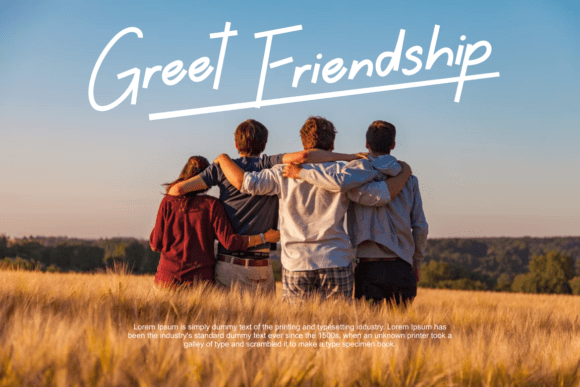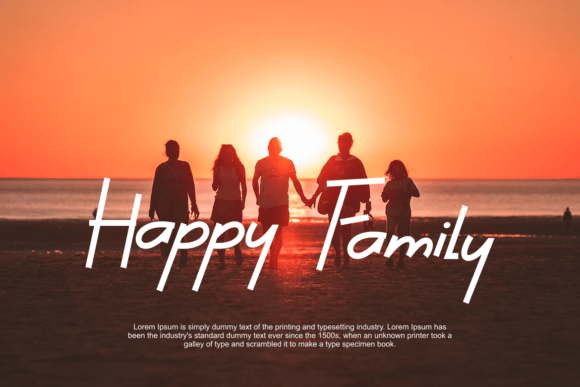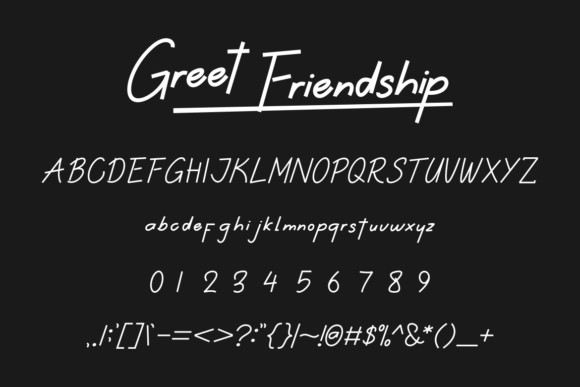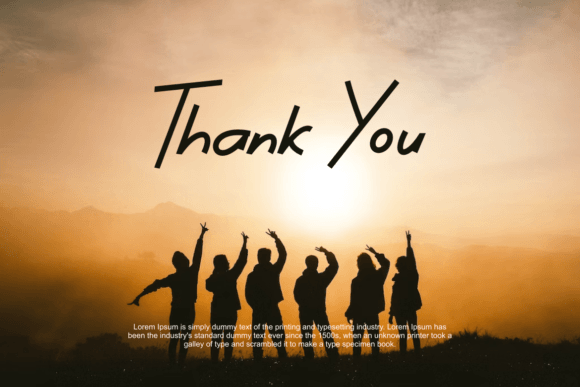
Greet Friendship Font: Elevate Your Designs with Elegance and Charm
Are you a designer or crafter looking for a font that exudes elegance and charm? Look no further than the Greet Friendship Font. This beautiful handwritten font is perfect for adding a touch of sophistication to your designs, making it ideal for a wide range of projects, from wedding invitations to business cards.
The Charm of Greet Friendship Font
Greet Friendship Font feels equally charming and elegant, making it a versatile choice for any design project. Its handwritten touch adds a level of warmth and personality to your designs, setting it apart from more traditional fonts. Whether you’re creating wedding invitations, thank you cards, or greeting cards, this font is sure to make your designs stand out.
One of the best things about Greet Friendship Font is its versatility. It looks stunning on a wide range of design projects, including:
- Wedding invitations: Add a touch of elegance to your wedding invitations with this beautiful font.
- Thank you cards: Show your appreciation in style with Greet Friendship Font.
- Quotes: Make your quotes stand out with this charming font.
- Greeting cards: From birthdays to holidays, Greet Friendship Font is perfect for all your greeting card needs.
- Logos: Add a personal touch to your logo with this unique font.
- Business cards: Stand out from the crowd with Greet Friendship Font on your business cards.
Why Choose Greet Friendship Font?
So why choose Greet Friendship Font for your design projects? Here are just a few reasons:
- Elegant and charming: This font exudes elegance and charm, making it perfect for designs that need a touch of sophistication.
- Versatile: Greet Friendship Font looks great on a wide range of design projects, from wedding invitations to business cards.
- Handwritten touch: The handwritten touch of this font adds a level of warmth and personality to your designs.
- Easy to read: Despite its elegant and cursive nature, Greet Friendship Font is easy to read, making it perfect for designs that need to be both beautiful and functional.
Tips for Using Greet Friendship Font
Here are a few tips for getting the most out of Greet Friendship Font:
- Use it sparingly: While Greet Friendship Font is beautiful, it can be overpowering if used too much. Use it sparingly to add a touch of elegance to your designs.
- Pair it with other fonts: Greet Friendship Font looks great when paired with other fonts. Try pairing it with a bold font for a striking contrast.
- Experiment with colors: Greet Friendship Font looks great in a variety of colors. Experiment with different colors to find the one that works best for your design.
In conclusion, Greet Friendship Font is a beautiful and versatile font that is perfect for designers and crafters looking to add a touch of elegance and charm to their designs. Its handwritten touch and elegant nature make it ideal for a wide range of design projects, from wedding invitations to business cards. With its ease of use and flexibility, Greet Friendship Font is a great choice for anyone looking to elevate their designs.